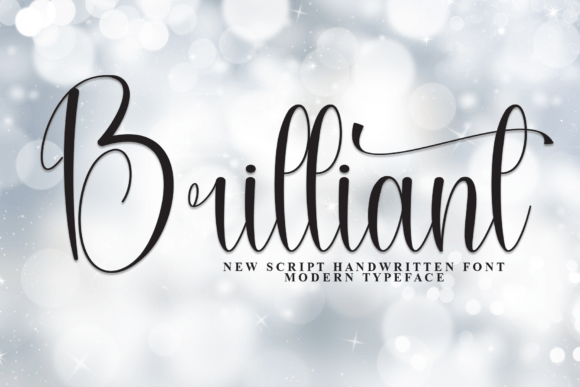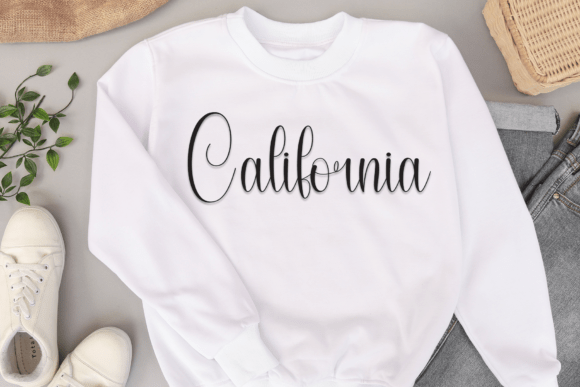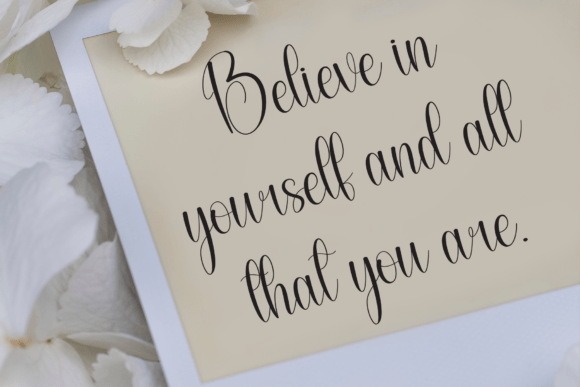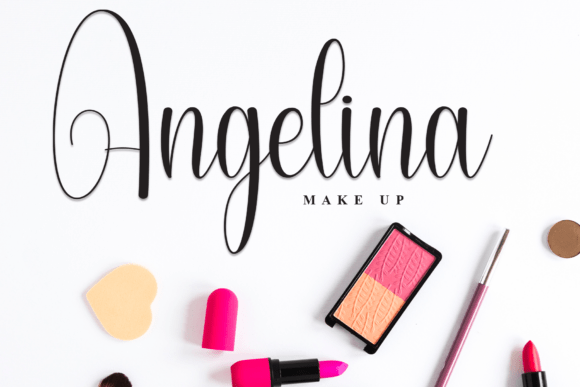
Brilliant Font
About the Brilliant Font
Meet Brilliant Font, a stunning font that brings a touch of elegance and professionalism to any design. Brilliant is a stylish handwritten script font that exudes elegance and charm with its fluid, graceful strokes. Perfect for branding, invitations, and stationery, it adds a personal and sophisticated touch. The smooth curves and natural flow create a timeless, refined look for any design.
Brilliant works exceptionally well in headlines, short-form text, and logos where its elegant nature shines. It’s ideal for branding projects targeting a sophisticated clientele, wedding invitations, or high-end product packaging. However, its delicate strokes make it unsuitable for body text or UI elements requiring high readability. Avoid using it for large blocks of text.
Pairing Brilliant with a clean sans-serif like Montserrat or a modern geometric sans-serif like Futura creates a strong contrast, grounding its fluidity. For a warmer feel, consider pairing it with a serif like Garamond or a complementary script with less pronounced flourishes.
Brilliant’s core personality is sophisticated elegance with a touch of romanticism. It is best suited for brands projecting luxury, artistry, or a refined aesthetic.
Brilliant Font Usage Examples
Brilliant Font Example